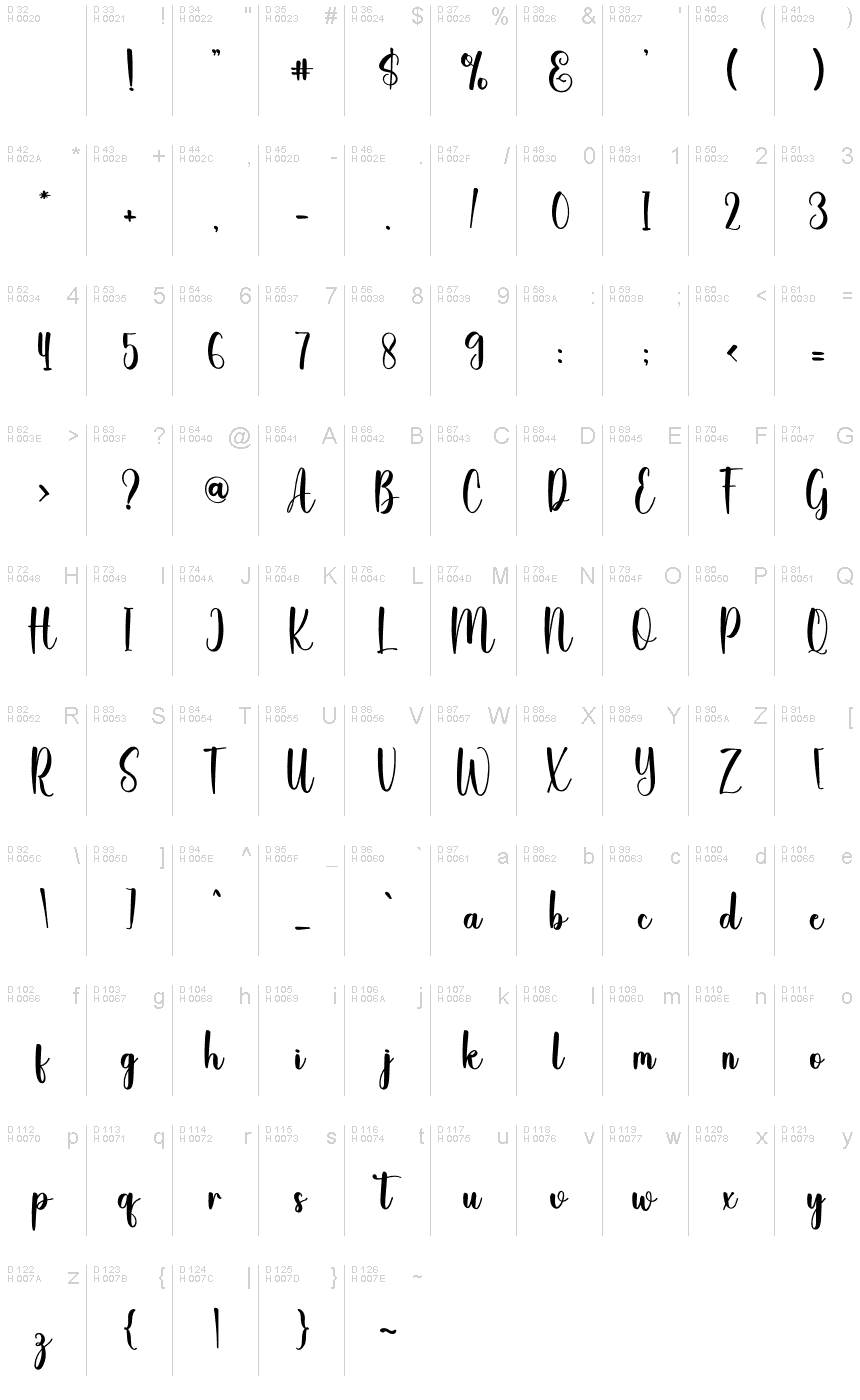
Alphabetha
Alphabetha is a narrow, handwritten font designed by Inermedia Studio. It adds a personal touch to projects such as greeting cards, logos, and invitations. Get creative and add an individualized look to any design!